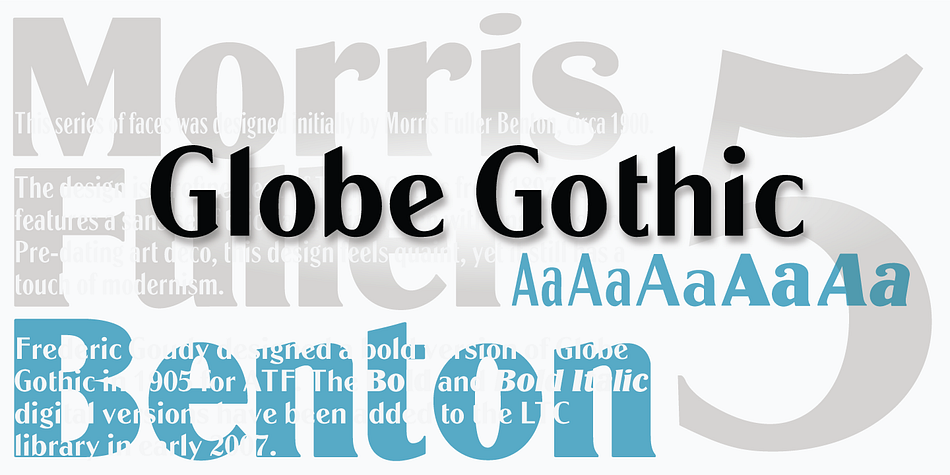
Designed by Morris Fuller Benton, Frederic W. Goudy and Colin Kahn, LTC Globe Gothic is a sans serif and display sans font family. This typeface has five styles and was published by P22 Type Foundry.
This series of faces was designed initially by Morris Fuller Benton, circa 1900. The design is a refinement of Taylor Gothic from 1897. It features a sans serif thick and thin design with angular stems. Pre-dating art deco, this design feels quaint, yet it still has a touch of modernism. Frederic Goudy designed a bold version of Globe Gothic in 1905 for ATF. The Bold and Bold Italic digital versions have been added to the LTC library in early 2007.